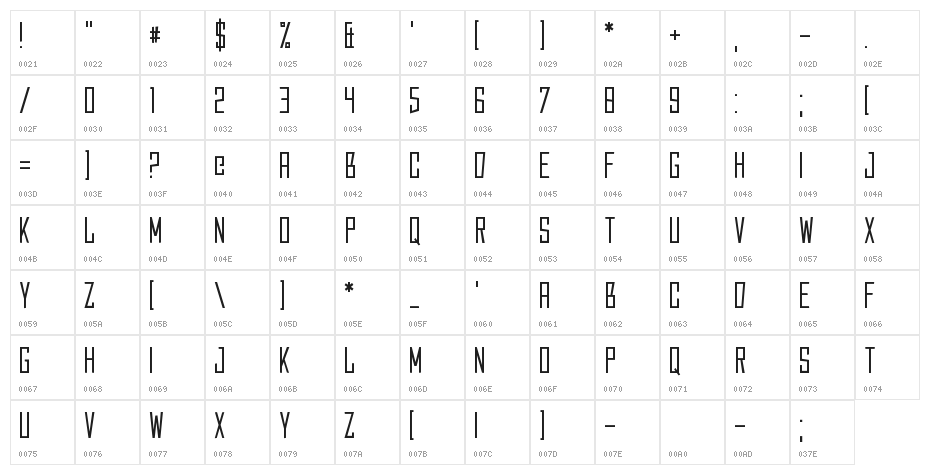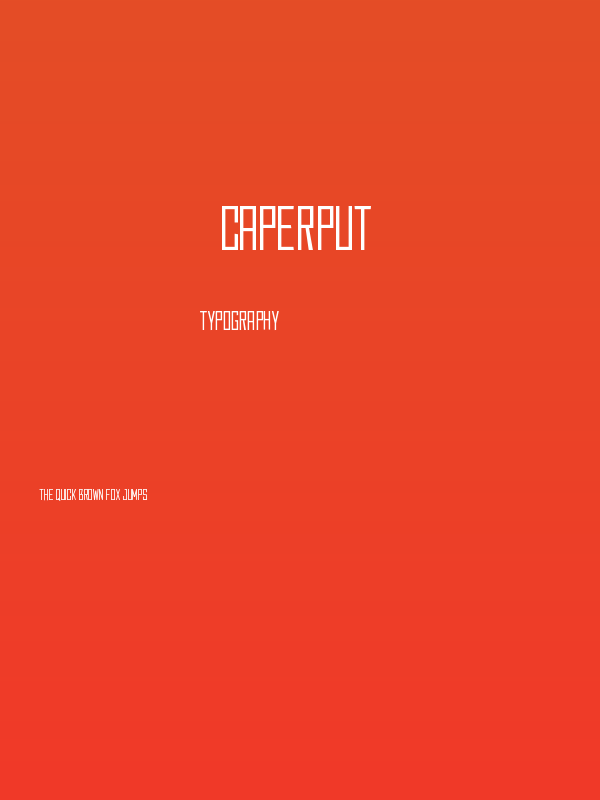
Caperput Font
Caperput Description
This font features a modern and geometric design with a strong emphasis on vertical lines and sharp angles. The characters are tall and narrow, giving a condensed appearance that is both sleek and stylish. The uppercase letters are particularly striking, with a uniform height and consistent stroke width that conveys a sense of precision and order. The numerals and special characters maintain this aesthetic, ensuring a cohesive look across all elements. The font's clean lines and minimalistic style make it highly legible, even at smaller sizes, while its distinctive form adds a touch of sophistication to any project.
| Width | Condensed |
| Use Case | Headlines, Logos, Digital Interfaces |
| Proposed Projects | Ideal for branding, editorial design, posters, and digital interfaces where a modern and sleek appearance is desired. |